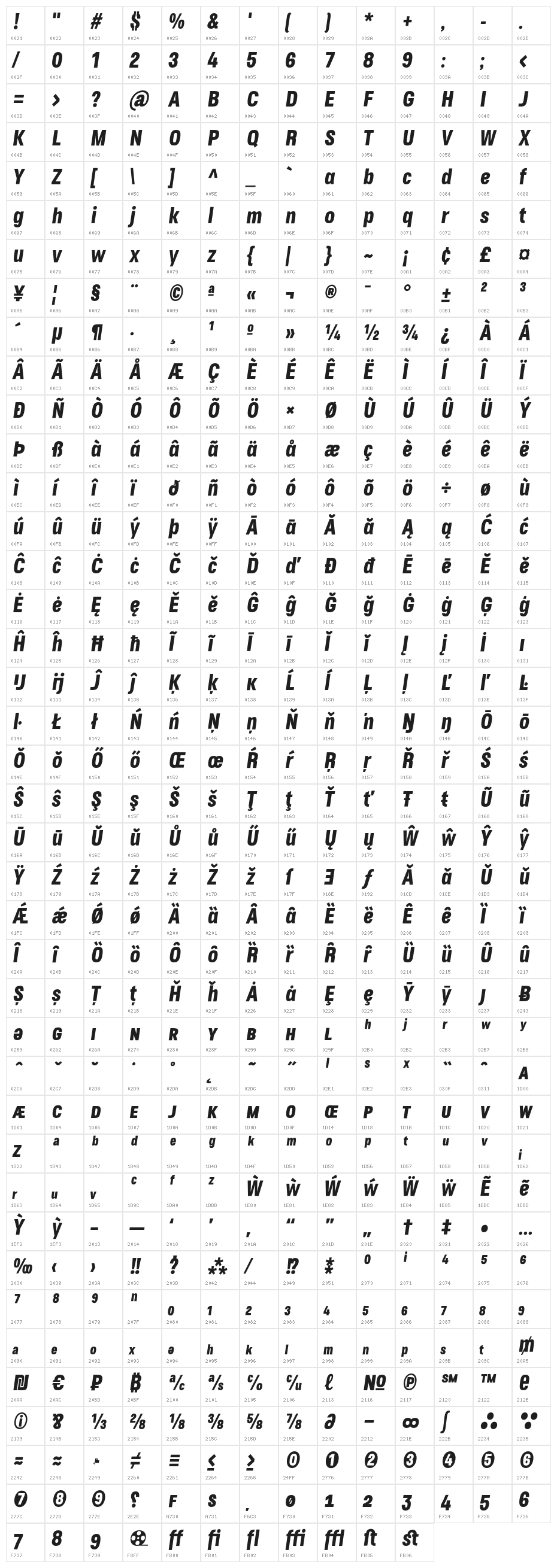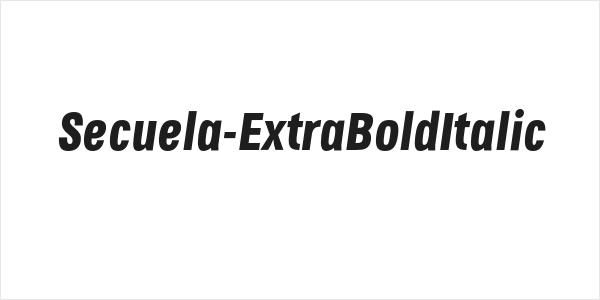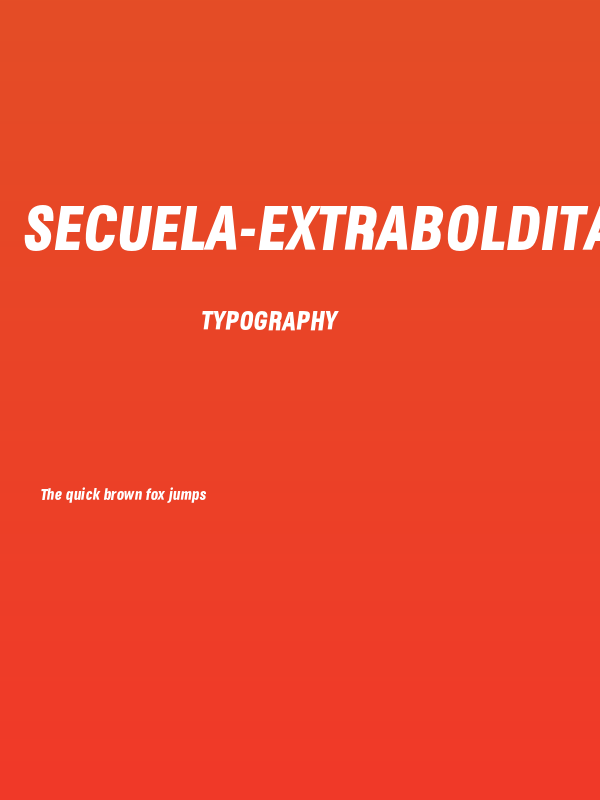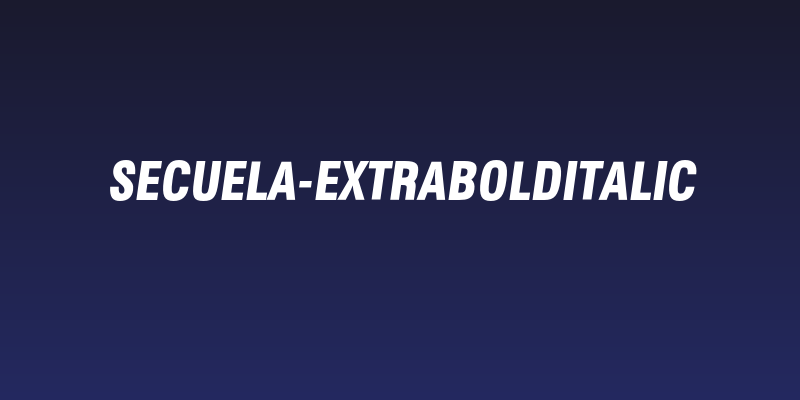
Secuela-ExtraBoldItalic Font
Secuela-ExtraBoldItalic Description
This font features a bold and italicized style, characterized by its strong, assertive presence. The letters are slightly slanted, giving a dynamic and energetic feel. The strokes are thick and consistent, providing a sense of stability and confidence. The uppercase and lowercase letters are well-proportioned, maintaining readability while conveying a modern aesthetic. The numbers and special characters are designed to match the boldness and slant of the alphabet, ensuring a cohesive look across all characters. This font is suitable for projects that require a strong visual impact.
| Proposed Projects | Ideal for headlines, posters, branding, and advertising materials that need a strong, impactful presence. |